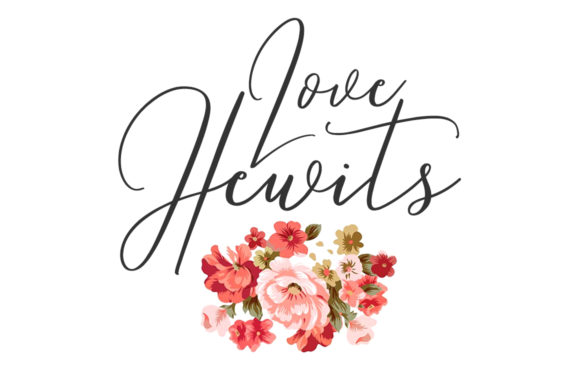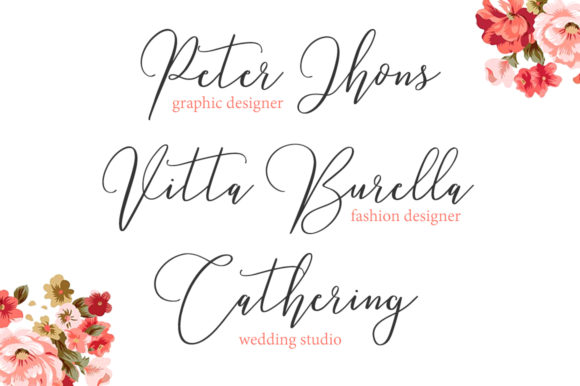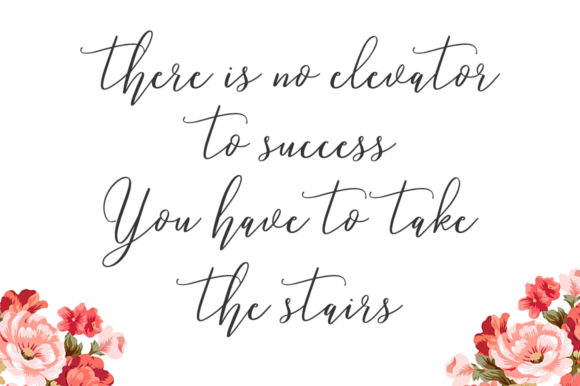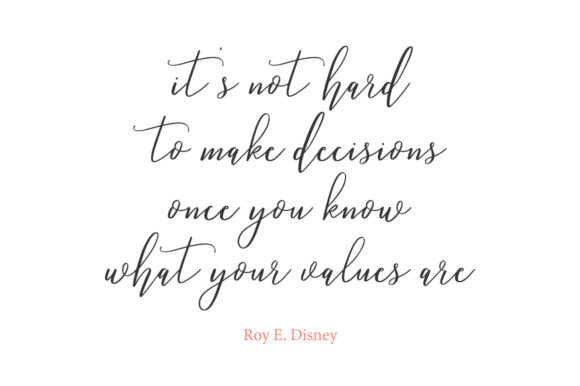
Love Hewits Font: Elegant Script for Wedding Invitations
About the Love Hewits Font
Crafted with precision, the Love Hewits Font is ready to bring your ideas to life. Love Hewits is a romantic and dreamy handwritten font. Delicate, flowery and relaxed, this font is ideal to add to your favorite personal designs, invitations, cards, letters and so much more.
Its delicate nature makes Love Hewits perfect for projects requiring a touch of romantic charm: wedding invitations, greeting cards, or branding for businesses focused on beauty, fashion, or artisanal goods. Headlines and short text blocks benefit most from its graceful style; however, avoid using it for body copy or UI elements where readability is paramount.
Love Hewits’ relaxed personality pairs well with clean sans-serif fonts like Montserrat or Open Sans for a balanced contrast. For a more sophisticated look, consider pairing it with a classic serif like Garamond or a subtly geometric sans-serif such as Lato. Avoid pairing it with other highly decorative scripts, as this can create visual clutter.
The font’s overall personality is best described as romantic and whimsical, conveying a sense of gentle elegance and effortless charm.
Love Hewits Font Usage Examples
Love Hewits Font Example